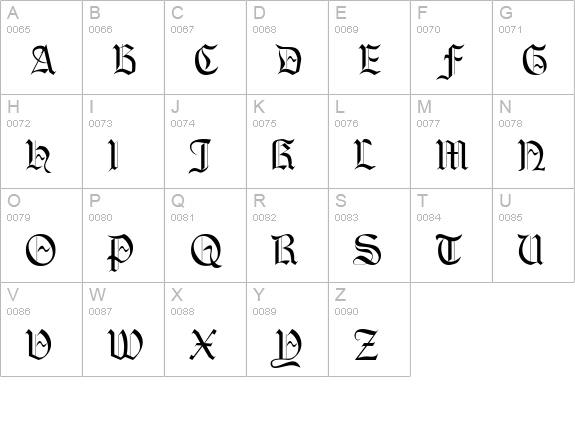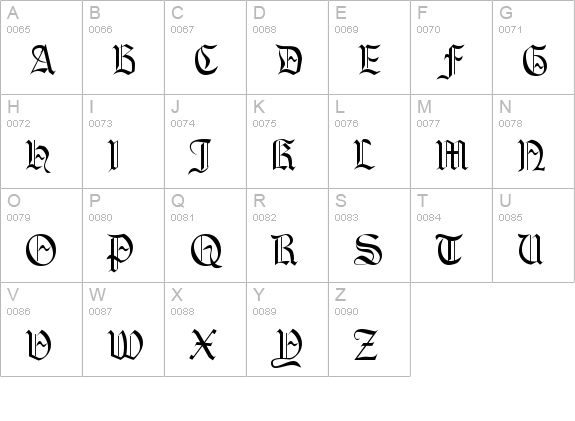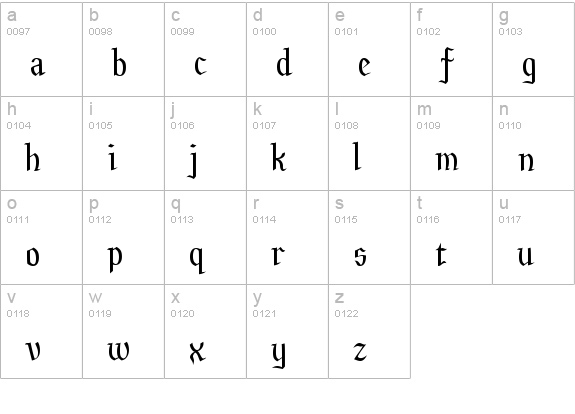
NewLaudens Font Details
Introducing NewLaudens font, a timeless and elegant typeface that exudes sophistication and class. With its clean lines and graceful curves, this font is perfect for adding a touch of refinement to any design project. Whether you're creating invitations, logos, or branding materials, NewLaudens will elevate your work to the next level. What's even better is that NewLaudens font is completely free to download at FontsMarket.com. That's right, you can add this stunning font to your collection without spending a dime. Don't miss out on the opportunity to enhance your designs with the beauty and versatility of NewLaudens font. Download it today and see the difference it can make in your creative projects.